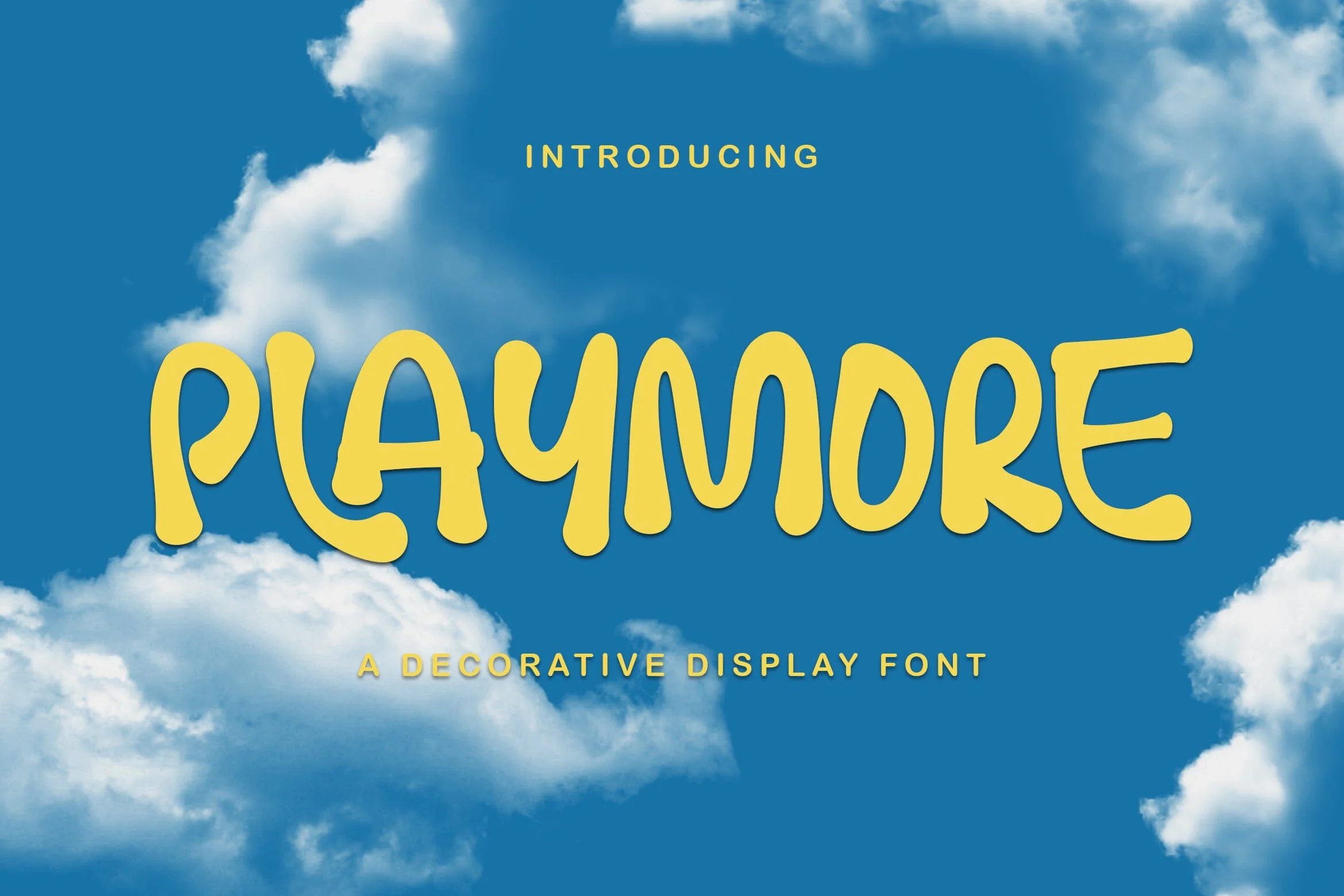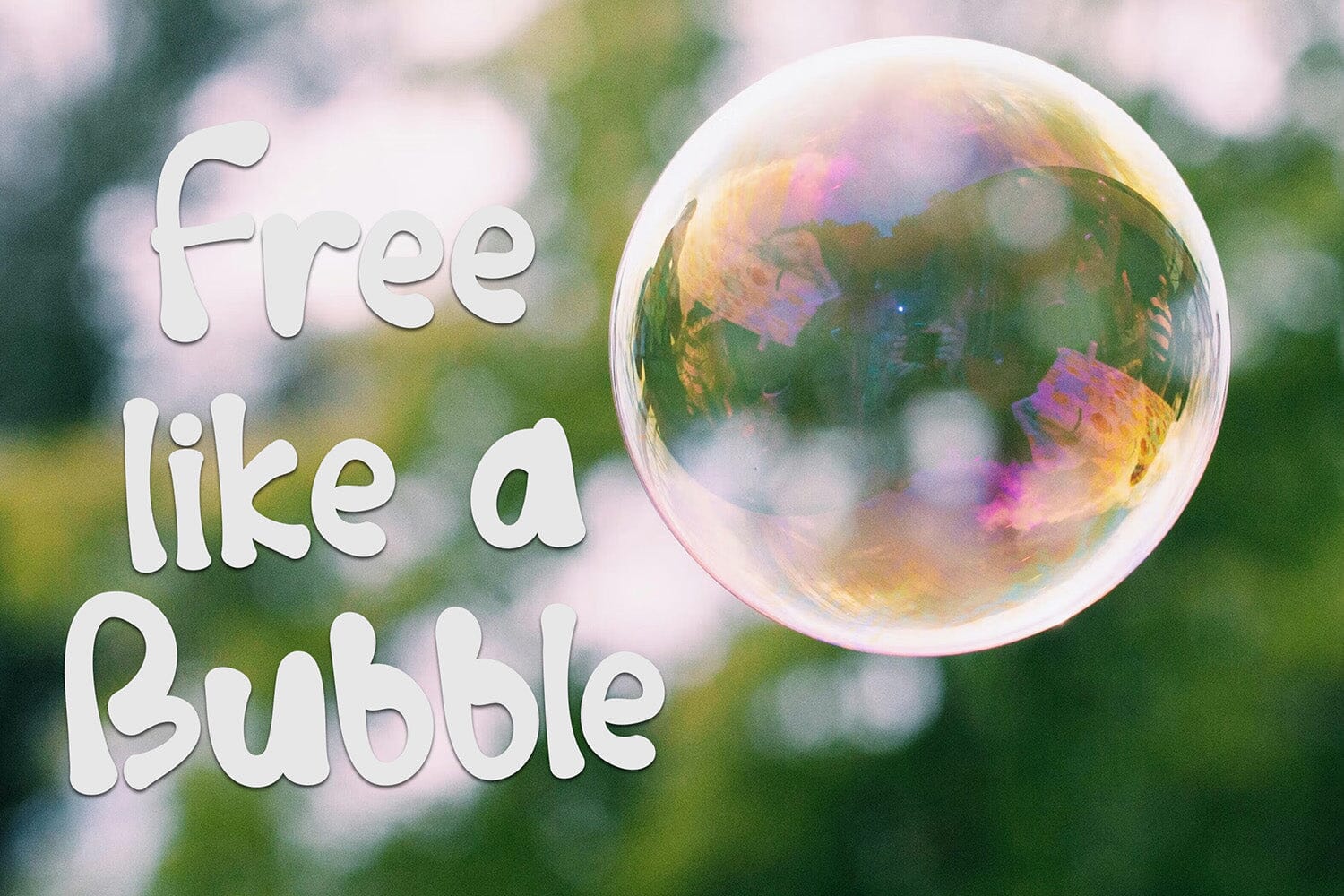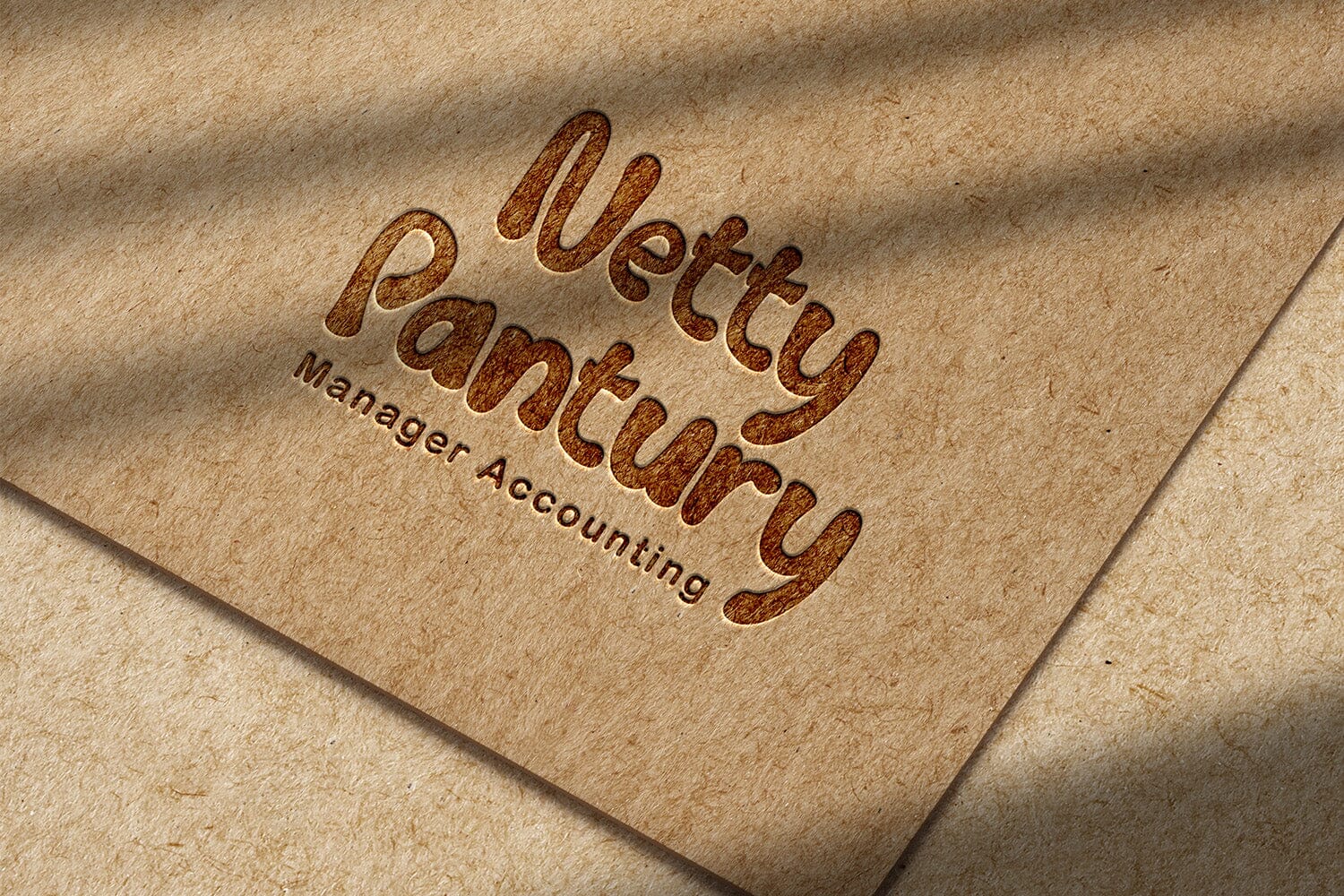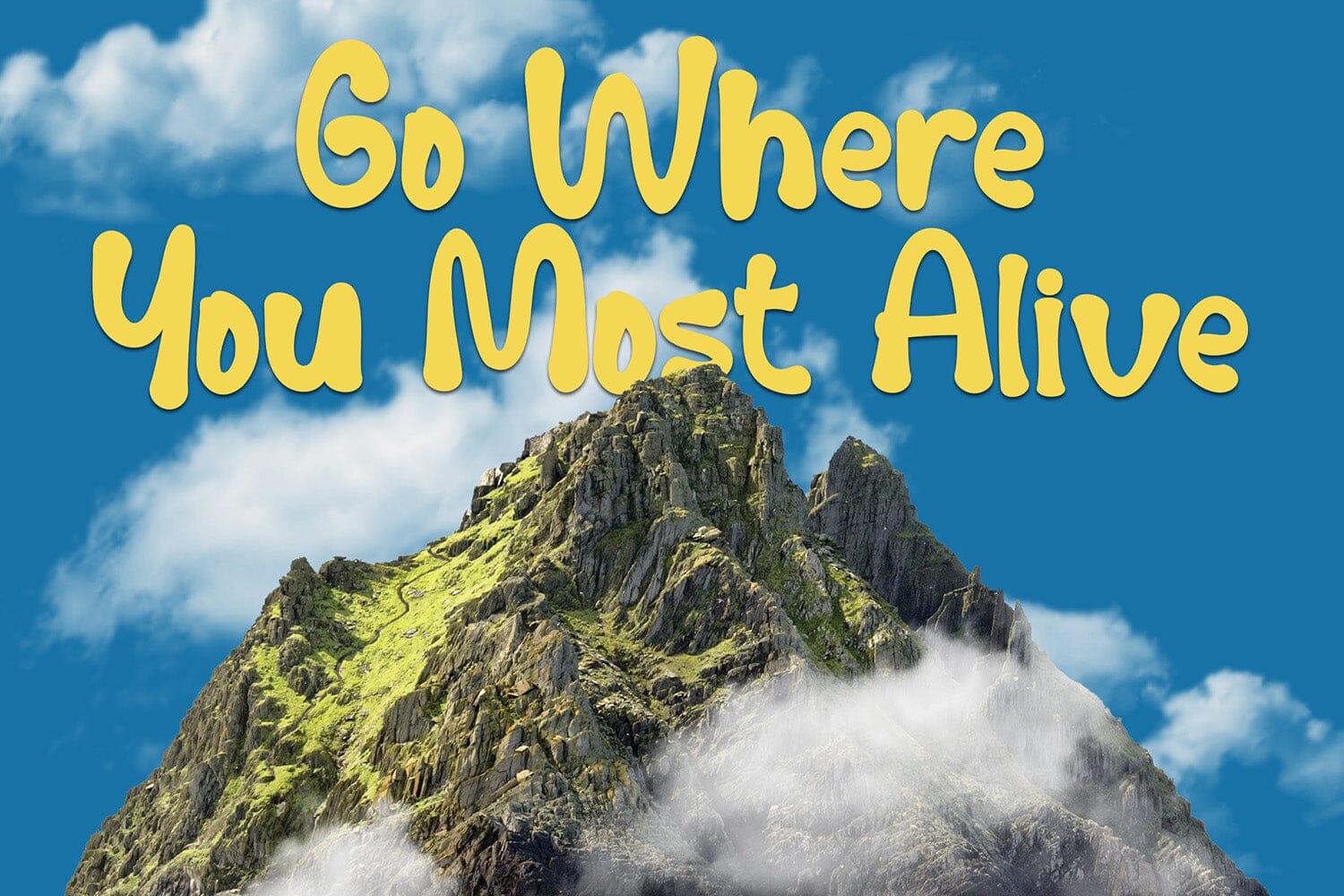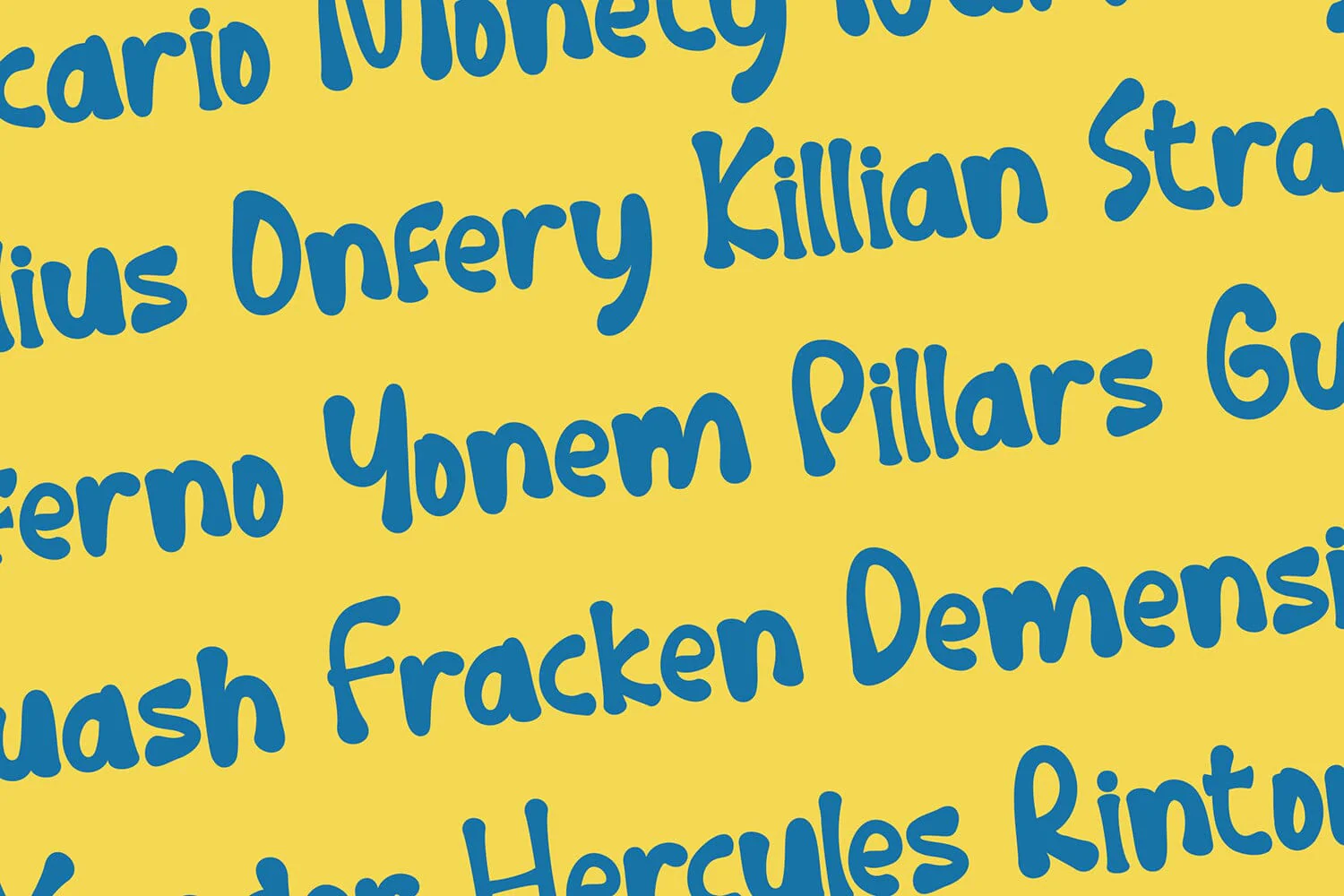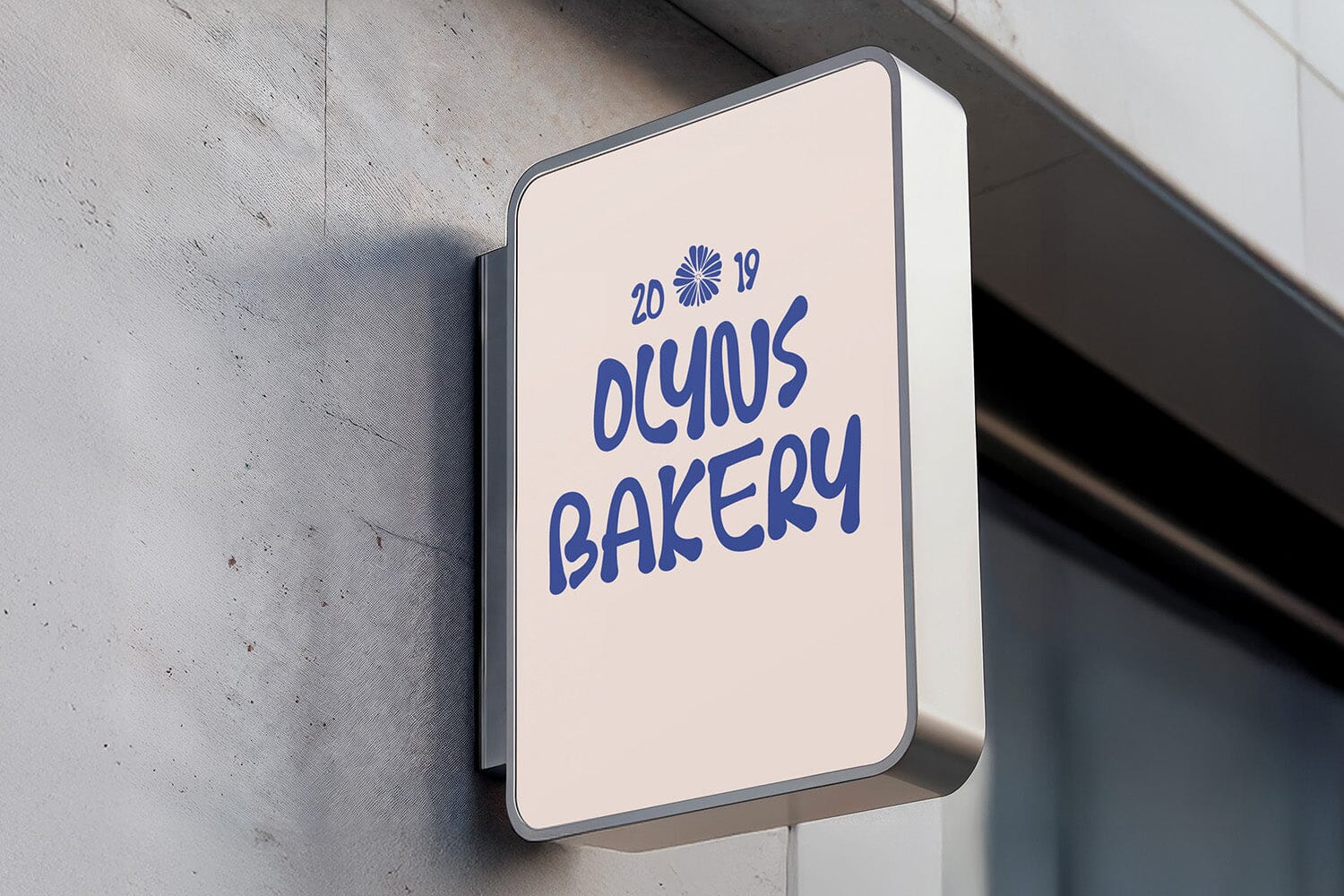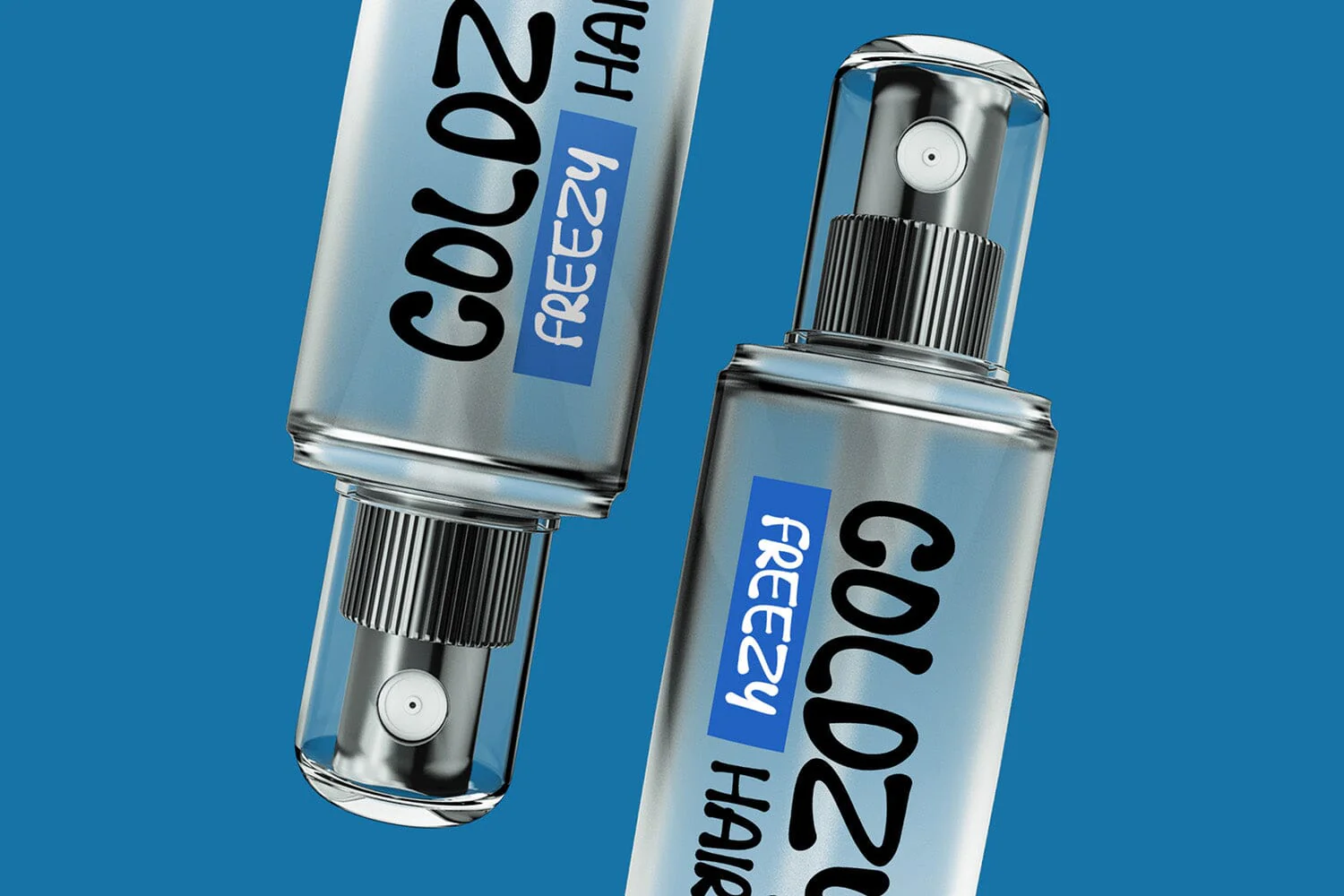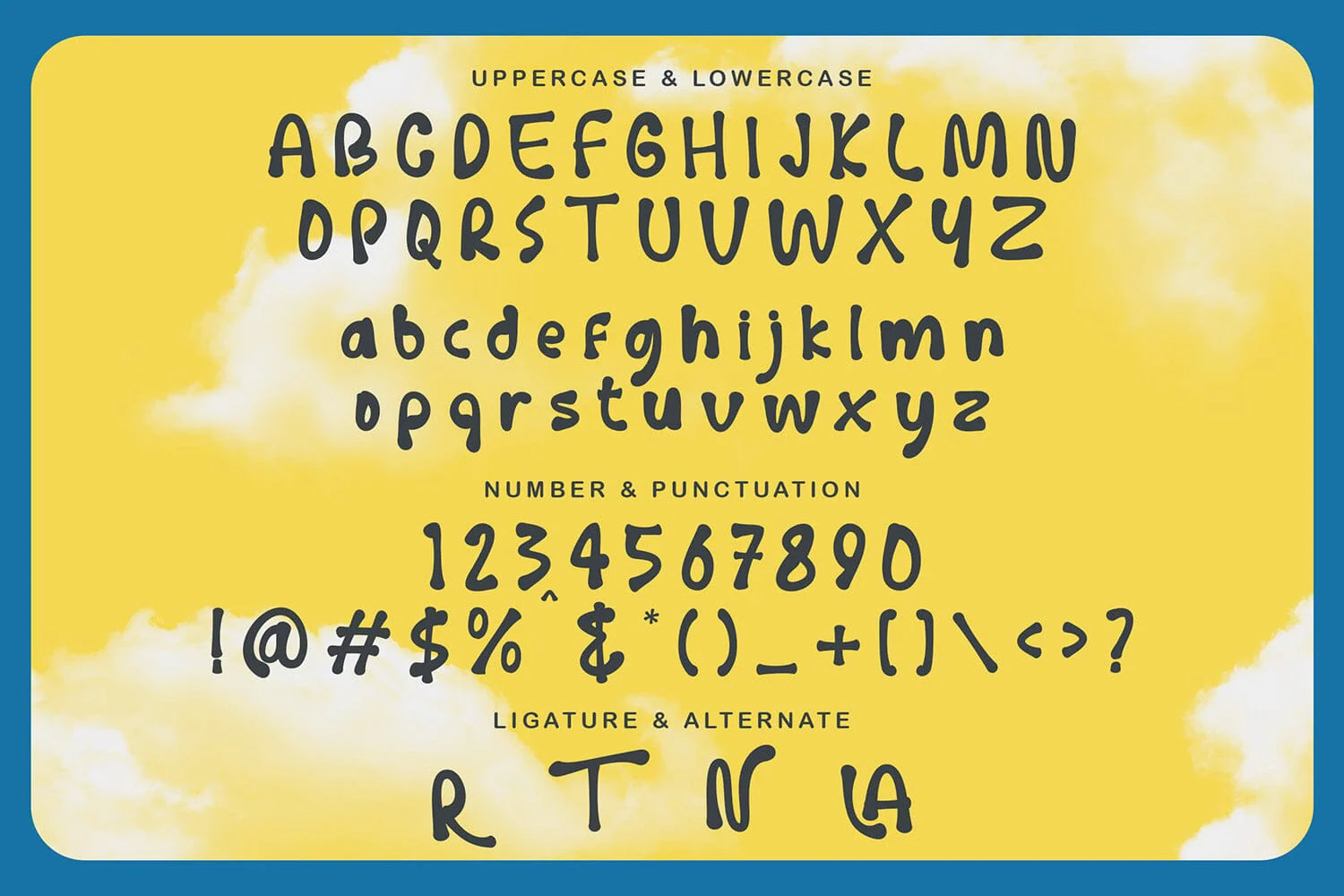
Playmore - Decorative Display Font
Introducing Playmore - Decorative Display Font
Playmore is a decorative display font designed with a cheerful and playful character. Its soft curves and rounded shapes create a friendly and lively appearance that instantly makes any design feel more fun and expressive.
This font works perfectly for logos, posters, branding, headlines, packaging, social media graphics, and creative typography projects. Playmore brings a bright and imaginative style that helps designs stand out with a unique visual personality.
With its smooth and whimsical letterforms, Playmore adds a joyful and eye-catching touch that makes your typography look more engaging and memorable.
Introducing Playmore - Decorative Display Font
Playmore is a decorative display font designed with a cheerful and playful character. Its soft curves and rounded shapes create a friendly and lively appearance that instantly makes any design feel more fun and expressive.
This font works perfectly for logos, posters, branding, headlines, packaging, social media graphics, and creative typography projects. Playmore brings a bright and imaginative style that helps designs stand out with a unique visual personality.
With its smooth and whimsical letterforms, Playmore adds a joyful and eye-catching touch that makes your typography look more engaging and memorable.